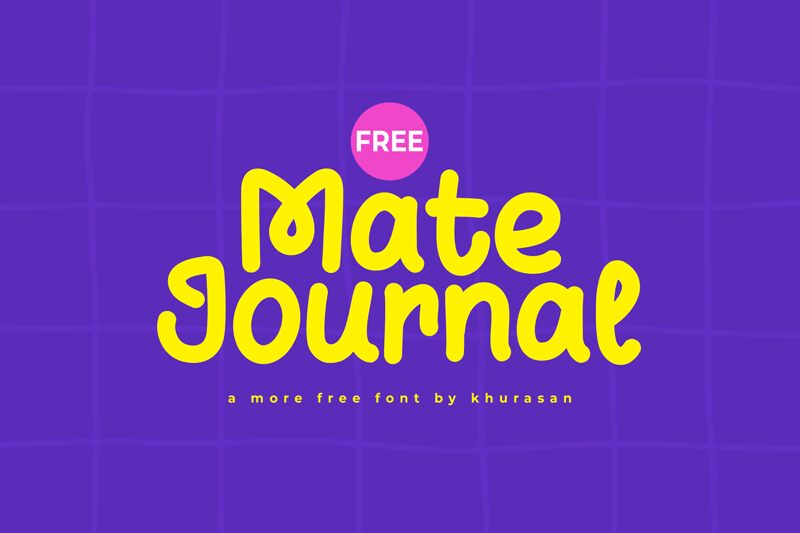
Mate Journal font family by Khurasan is a free cartoon font with an engaging style. Designed with rounded edges, this friendly typeface is modern, casual, approachable, and youthful. Its whimsical and informal feel creates a positive and engaging atmosphere for your visual content.
Mate Journal is a great fit for children’s books, posters, fun advertisements, birthday cards, comic books, invitations, and playful packaging. Also use it for quotes, magazine headlines, and logos. Enjoy trying it for packaging, social media graphics, and other online content.